David has managed to catch the attention of a lot of people all over the internet with his style and creativity. David’s work is a personal inspiration and we are really happy that he managed to find some time to participate in our hand lettering interviews series.
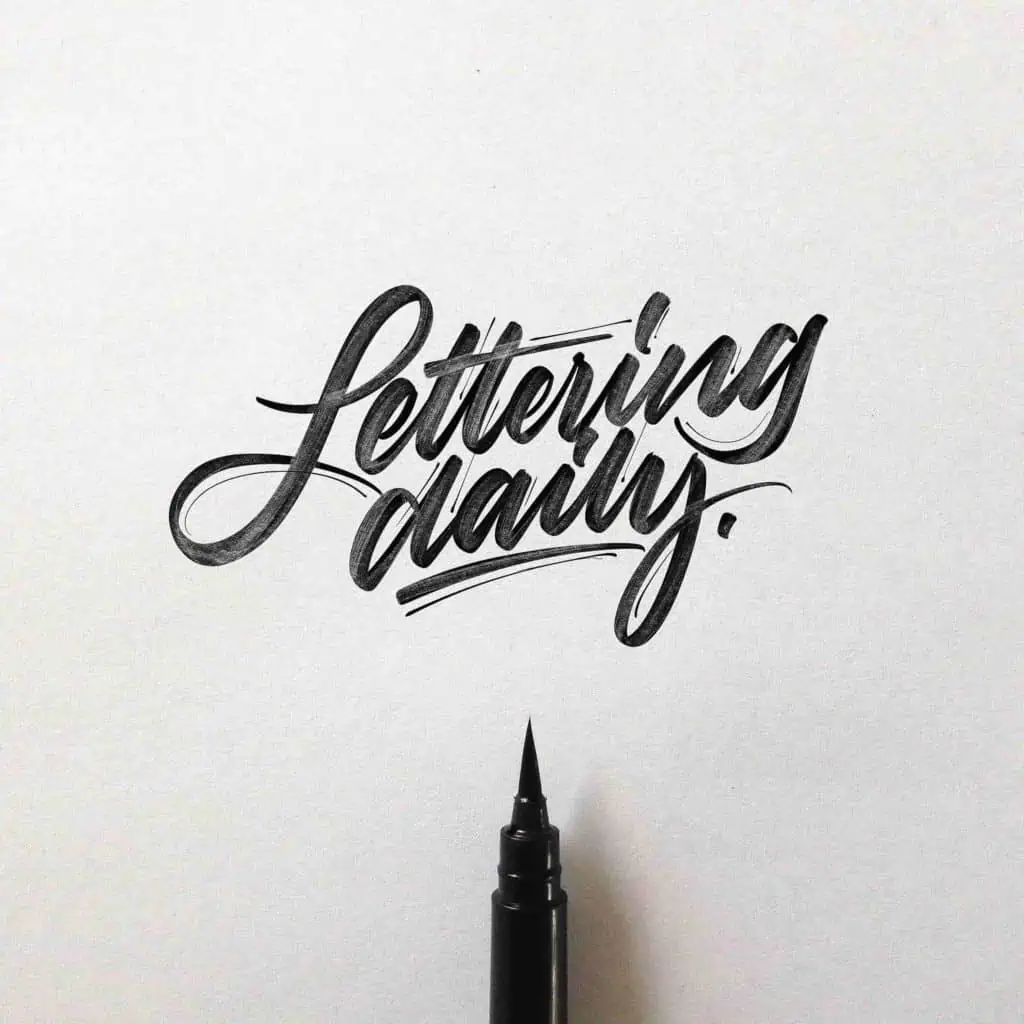
1) Tell us a bit about yourself
Well, I’m David Milan and I’m a graphic designer and lettering artist based in Spain. Actually, I’m working as an independent freelance designer.
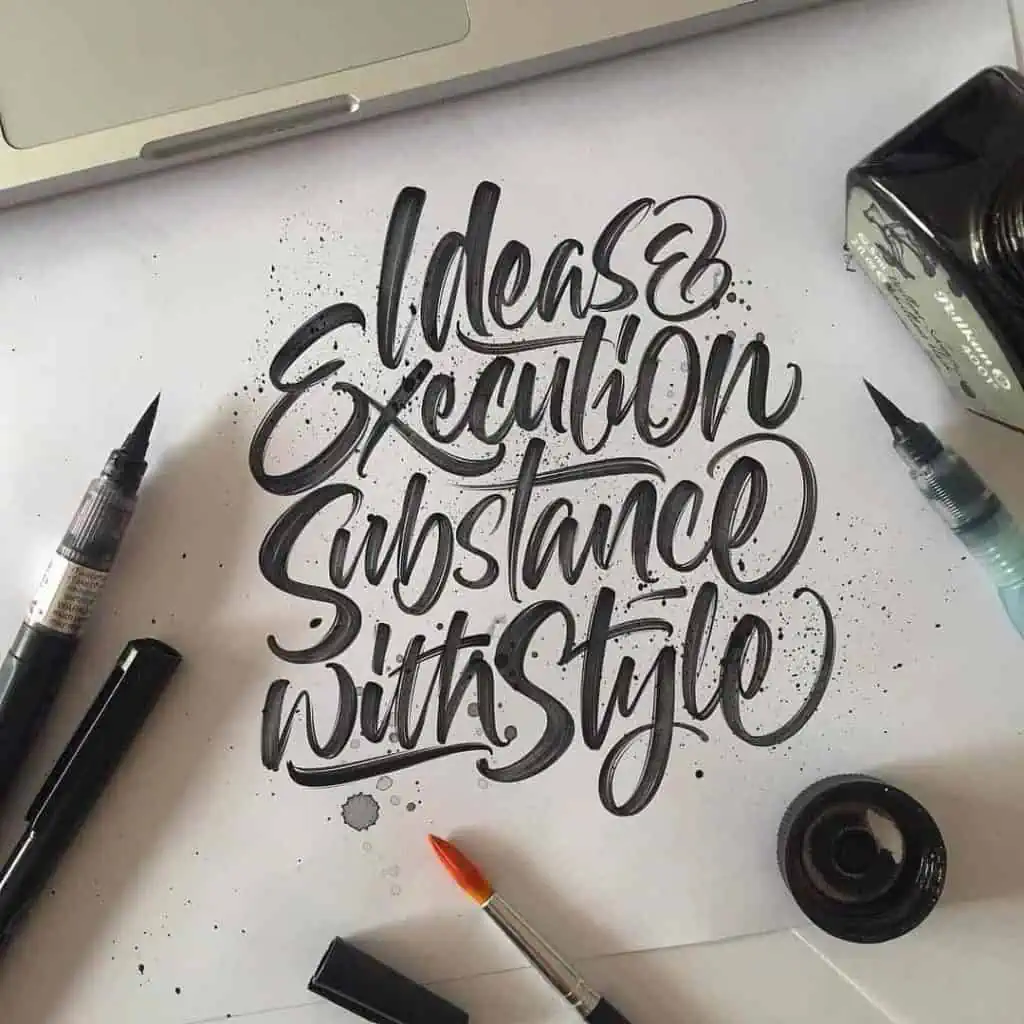
2) How and when did your lettering journey started? ( tell us a bit about your lettering history :D)
Everything started when I was 15 years old as a graffiti writer. Then I began to feel some kind of love for the letters and a couple of years ago I started to making letters again, and here’s when my life begins.
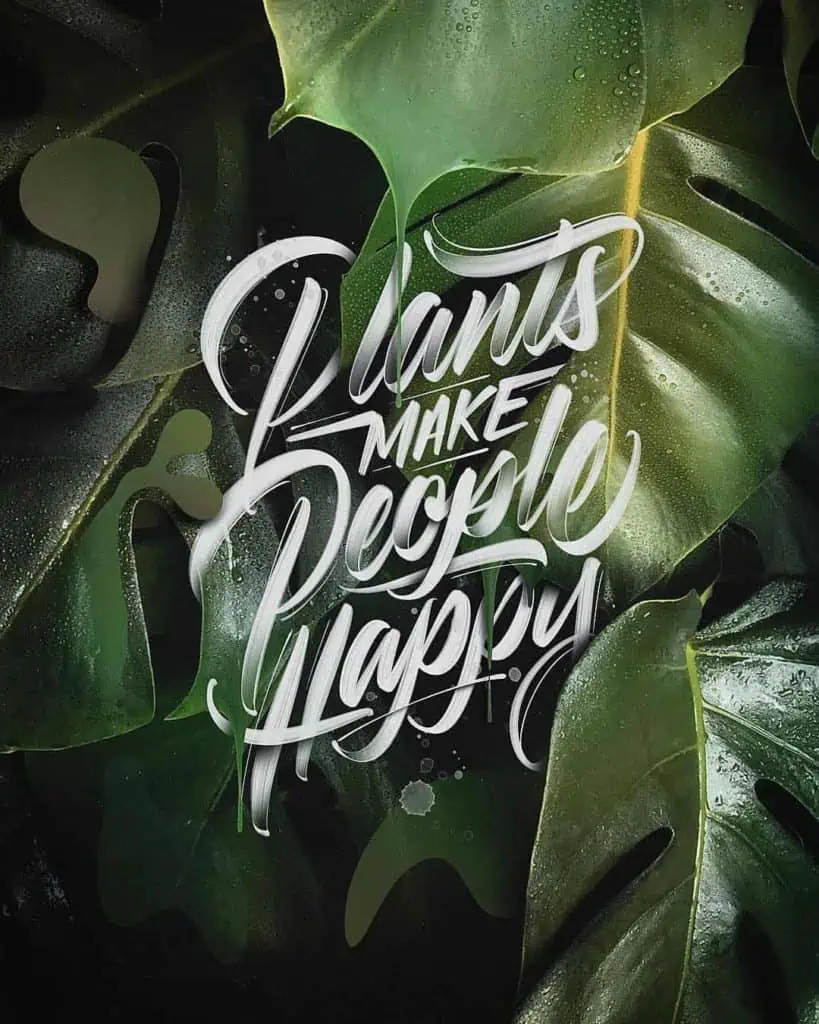
3) Your style is very unique, where do you get your inspiration from? what helped you the most to develop your unique style?
I started watching videos of famous graffiti and lettering artists. I found Seb Lester’s work and I fell in love with his techniques for making different styles of calligraphy.
After that I found Joluvian’s work and really liked his style! Actually he’s one of my favorite artists. I tried to make the same technique practicing day by day with the same pens and tools as him. It’s wasn’t easy for me, you know, you must practice and have patience, that’s the secret.
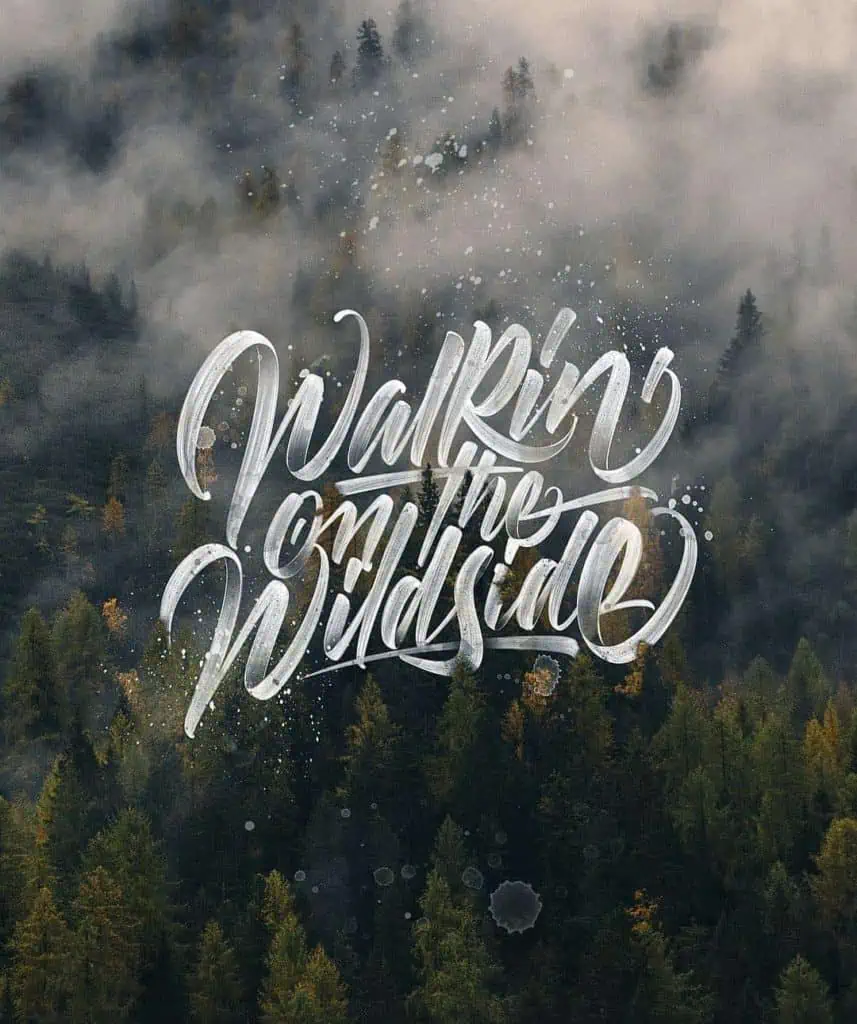
4) From your Instagram feed we can see that the crayola marker is one of your favorites, what other tools do you use?
Yeah! I love Crayola markers, but I also love the flow and textures of the Tombow markers, you can also make thick and thin strokes. They’re such great tools for every lettering artist.
As for my digital works I used to work with Photoshop for different effects on my letters.
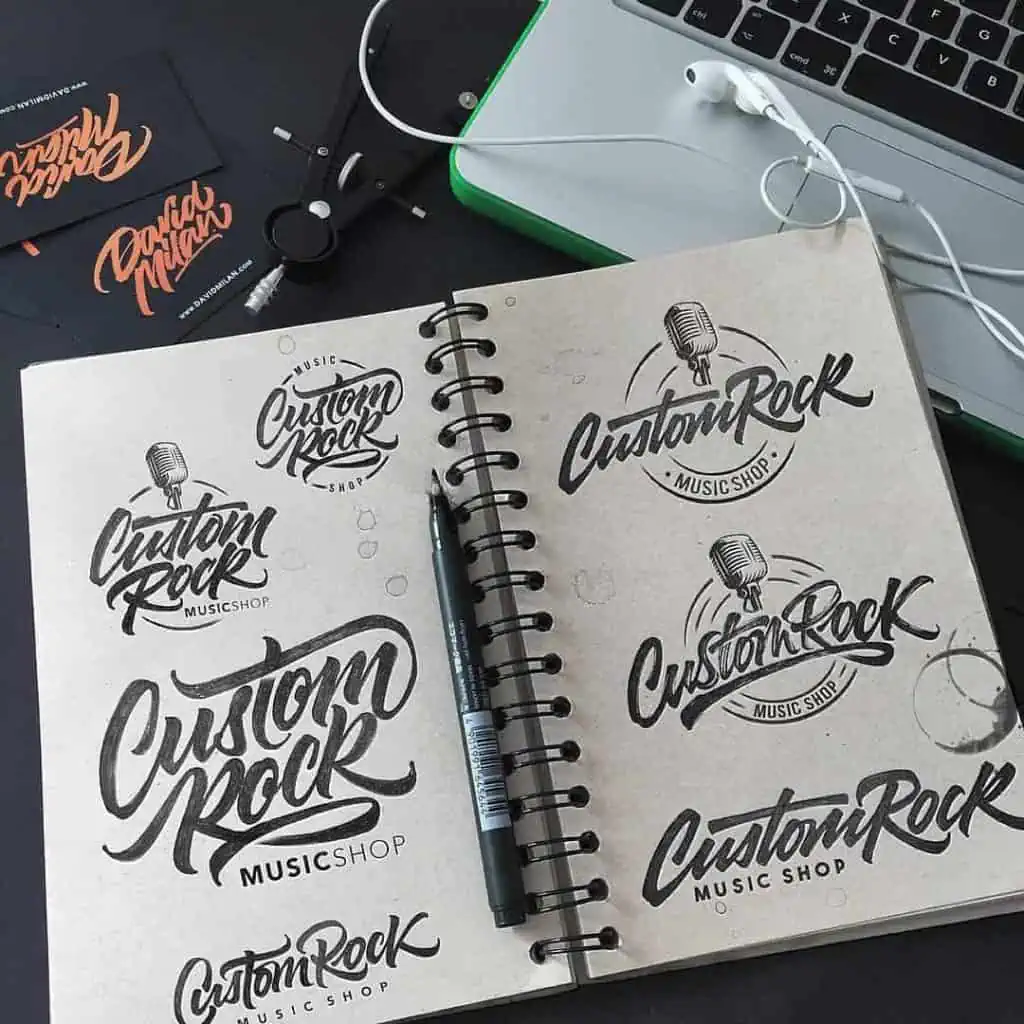
5) Could you guide us through the process of your artwork?
Of course! The hardest part of my job is finding a good quote or a word haha. I could spend hours looking for a good one.
Since I have the phrase or word I start to make the sketches in different styles, after having chosen the best one I proceed to do it with a marker, brush or directly digital on a tablet. Finally I place the lettering on a photo or image.
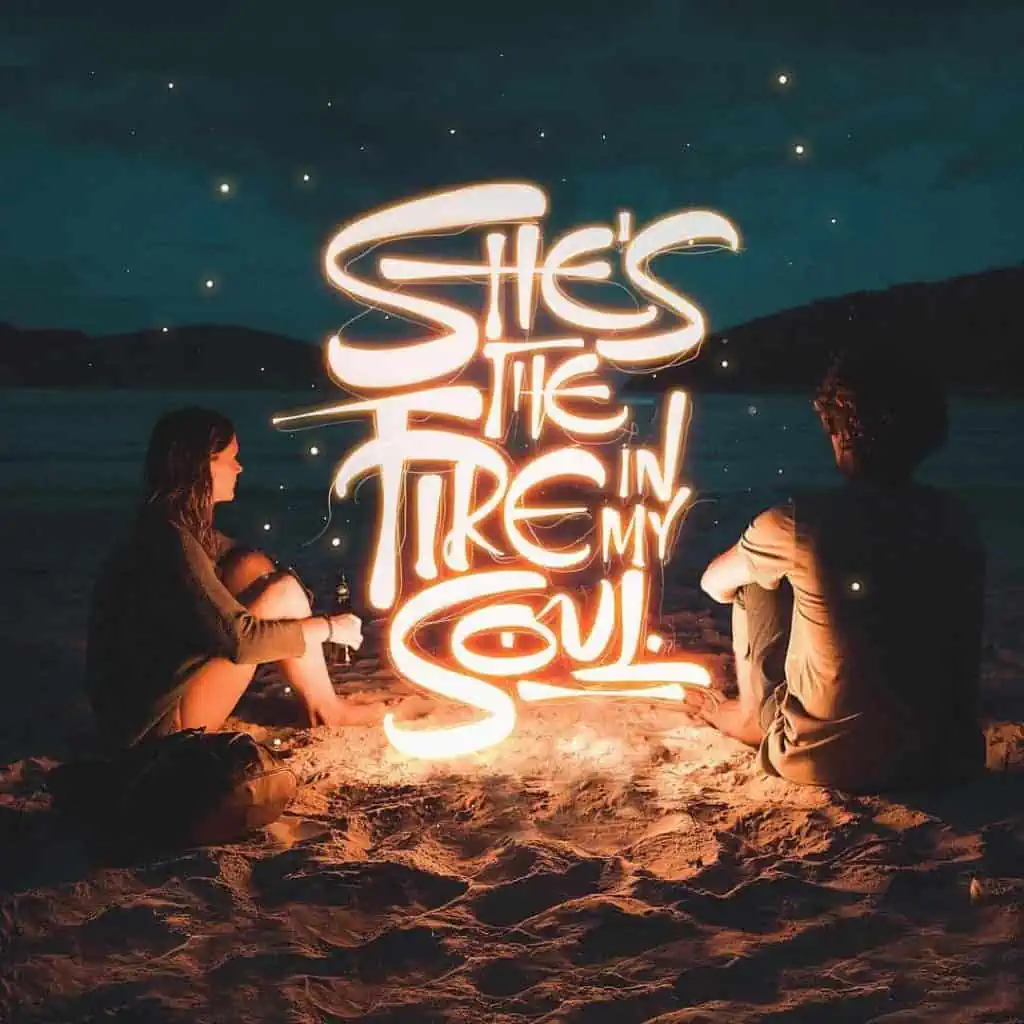
6) In your opinion, what are the most common mistakes that beginners do? Would you mind sharing a few tips?
I think the strokes are very important element in order to create a nice lettering piece, also the thickness and kerning are very important. Sometimes I have the same mistakes, I usually see different works of great artists to have a better idea of how to do it and that’s how I improve my work!
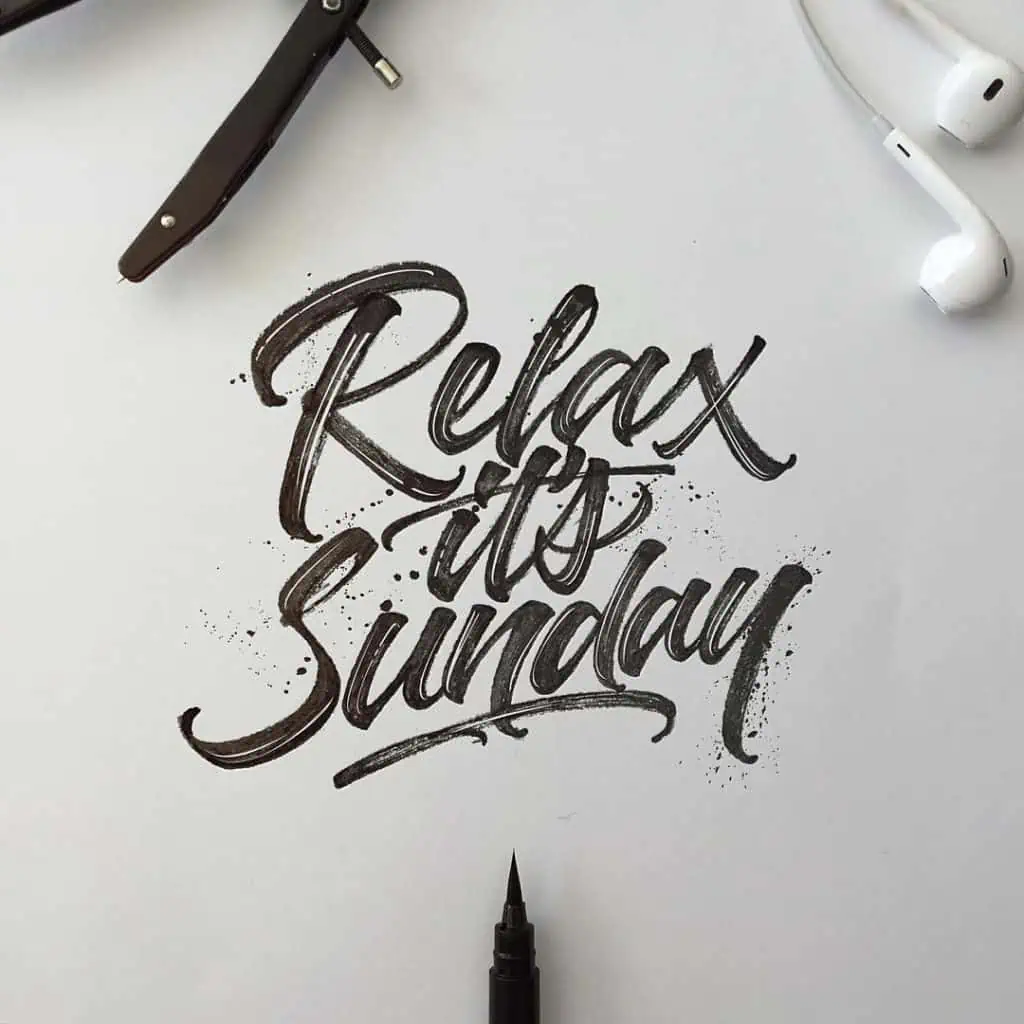
7) What do you think you would do in your life if you never started with hand lettering?
I think I would be someone who does things with paint, I really have an addiction for colors and paint. 🙂